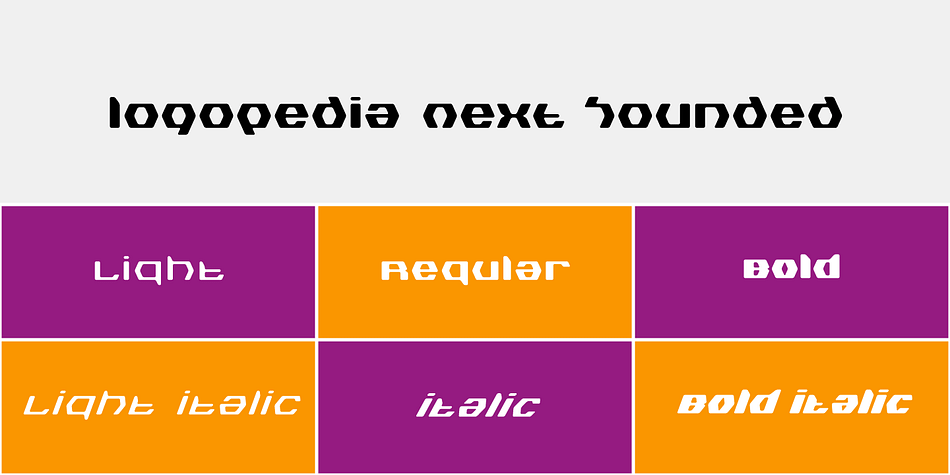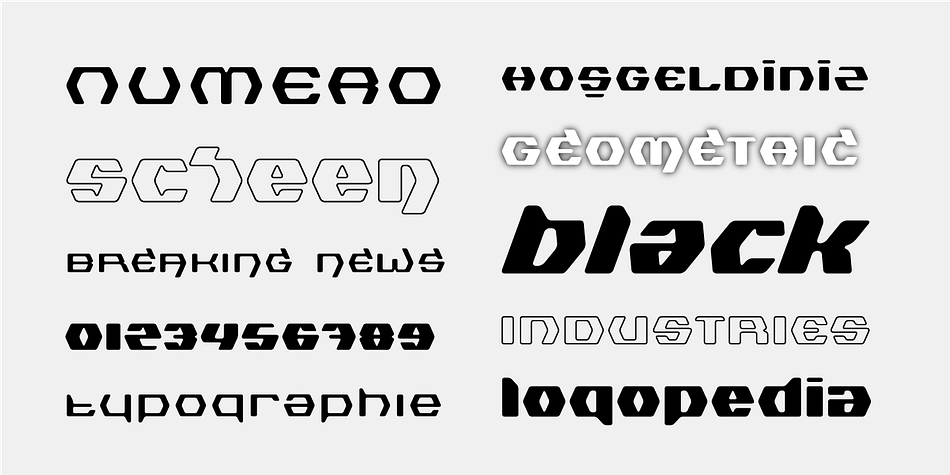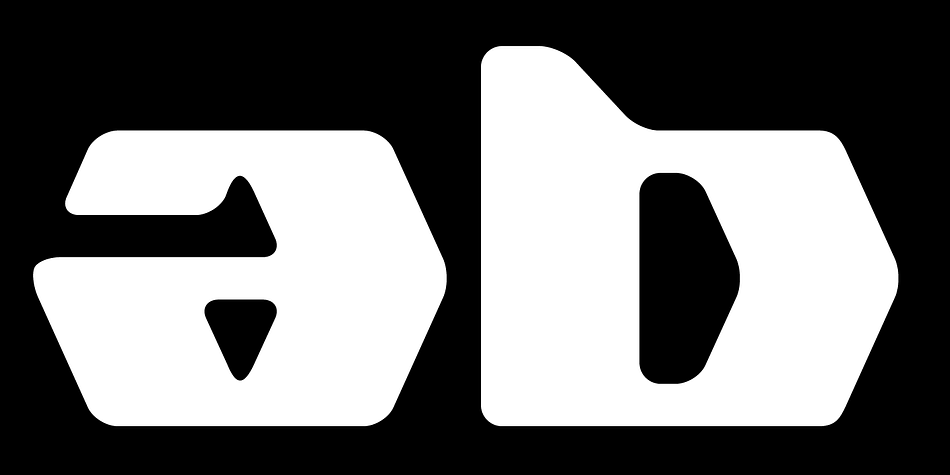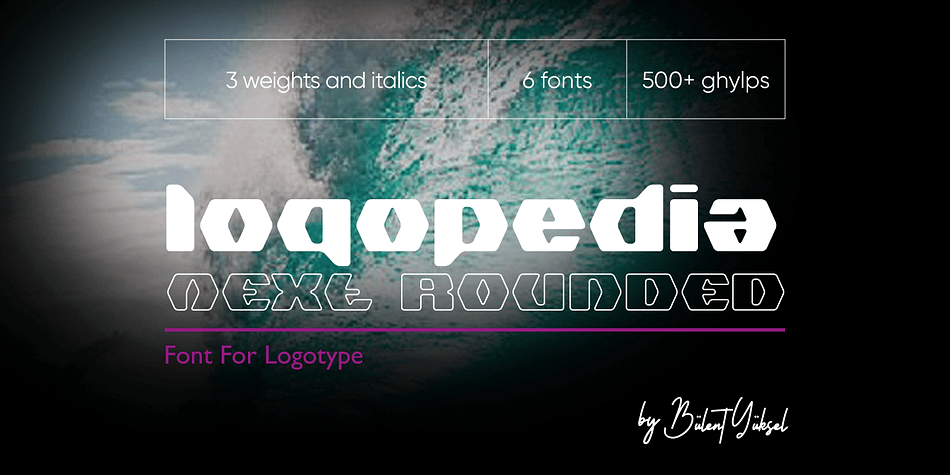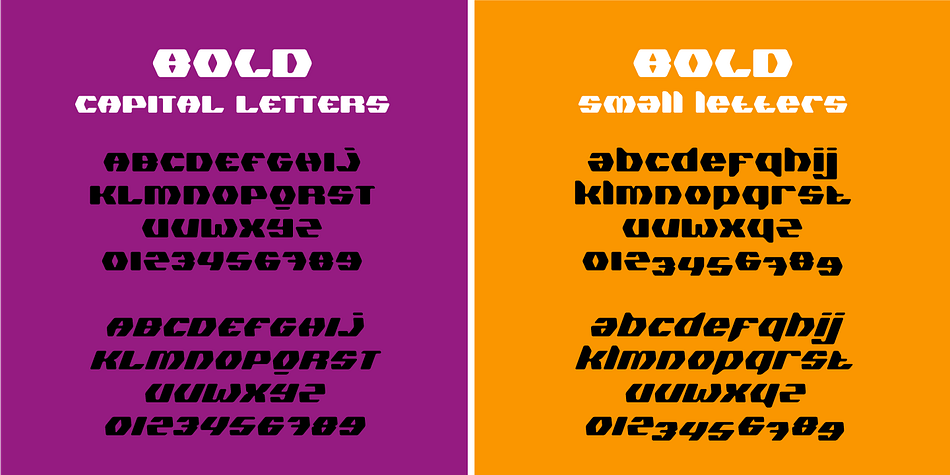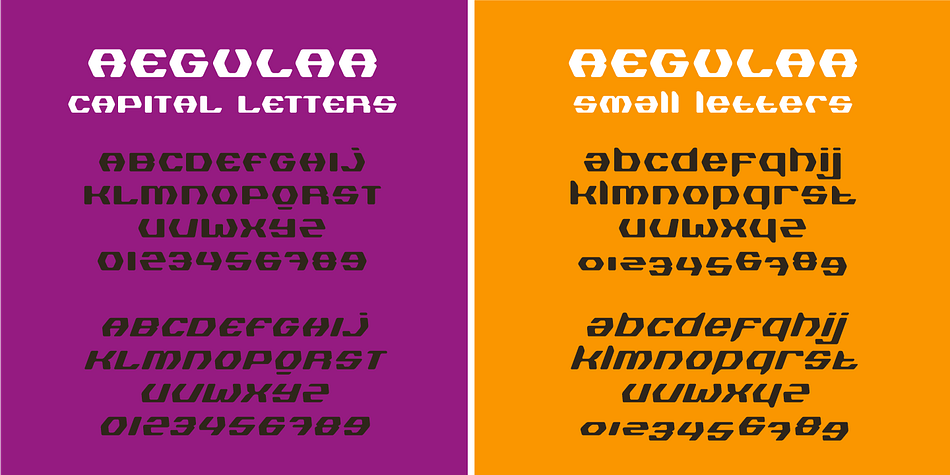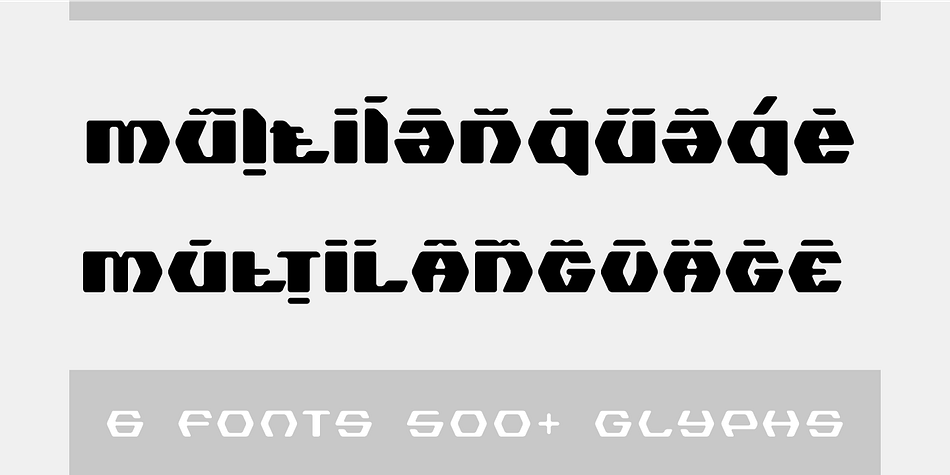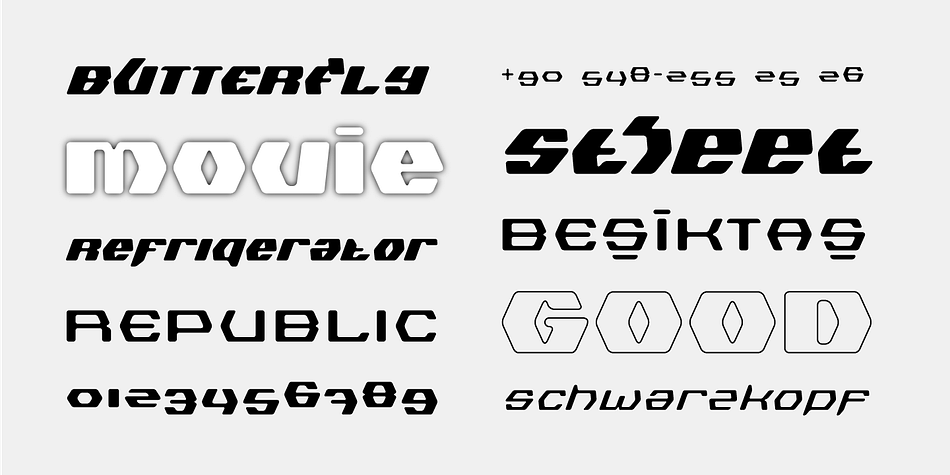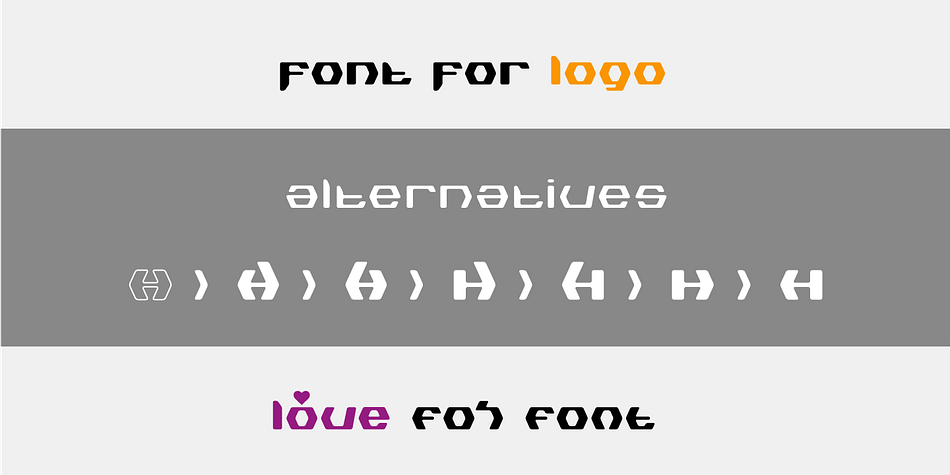
Logopedia Next Rounded
Designed by Bülent Yüksel, Logopedia Next Rounded is a display sans font family. This typeface has six styles and was published by Bülent Yüksel.
What makes “Logopedia Next Rounded” unique is that it has a strong body, upper and lower case letters are the same size and work in perfect harmony.
All letters in the character have “alternatives” in various numbers. This feature provides you variety in your designs. It is possible to take your designs to the next level by using “Logopedia Next Rounded”.
“Logopedia Next Rounded” is ideal for especially logo design, advertising and packaging, branding and creative industries, banners and billboards and signage as well as web and screen design.
“Logopedia Next Rounded” provides advanced typographical support for Latin-based languages. An extended character set, supporting Central, Western and Eastern European languages, rounds up the family.
The designation “Logopedia Next Rounded 500 Regular” forms the central point. “Logopedia Next Rounded” comes 3 weights and italics total 6 types. The family contains a set of 543 glyphs.
Classes and Features, Stilistic Style, Fractions and Old Style Numerator just one touch easy In all graphic programs.
“Logopedia Next Rounded” is the perfect font for web use.